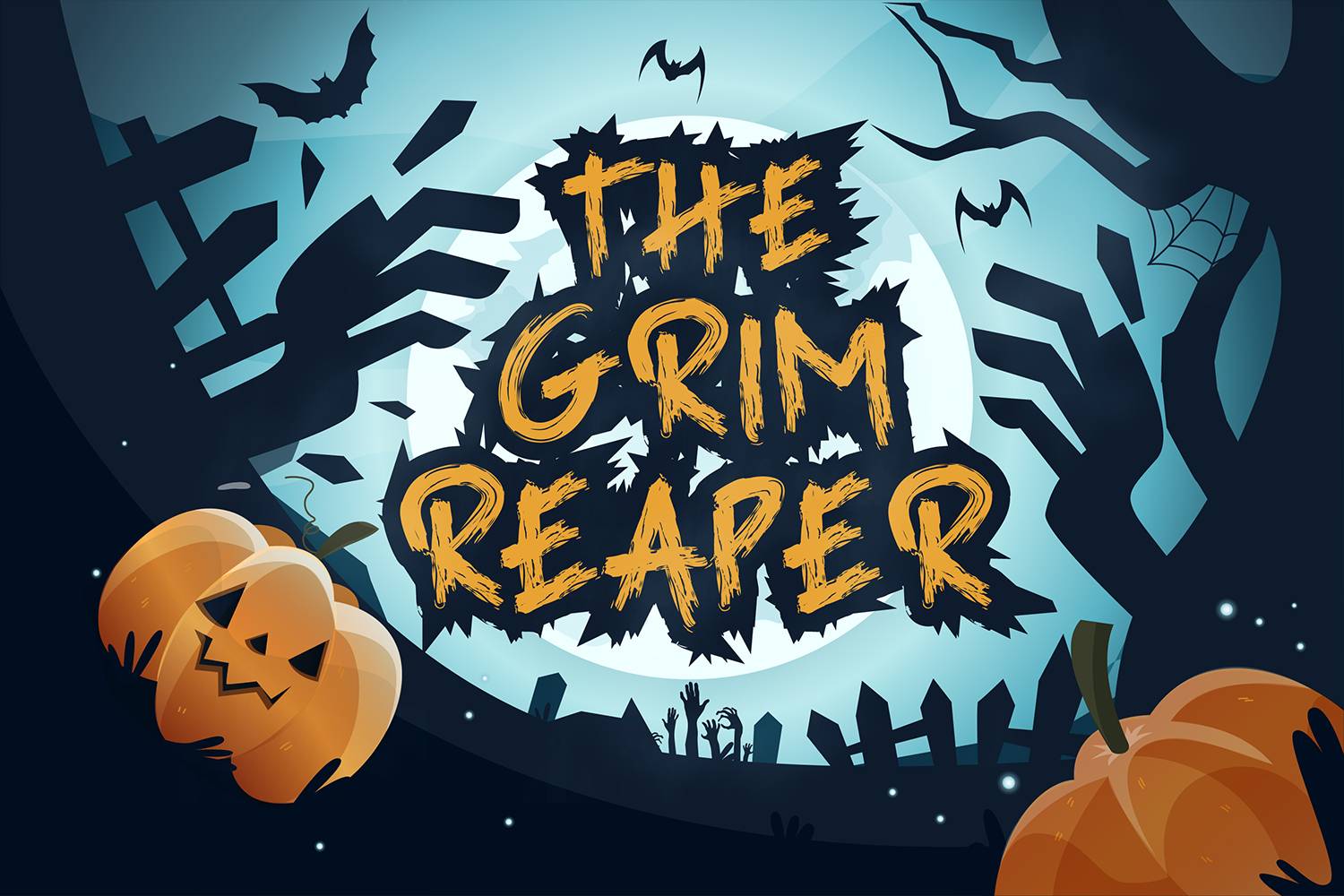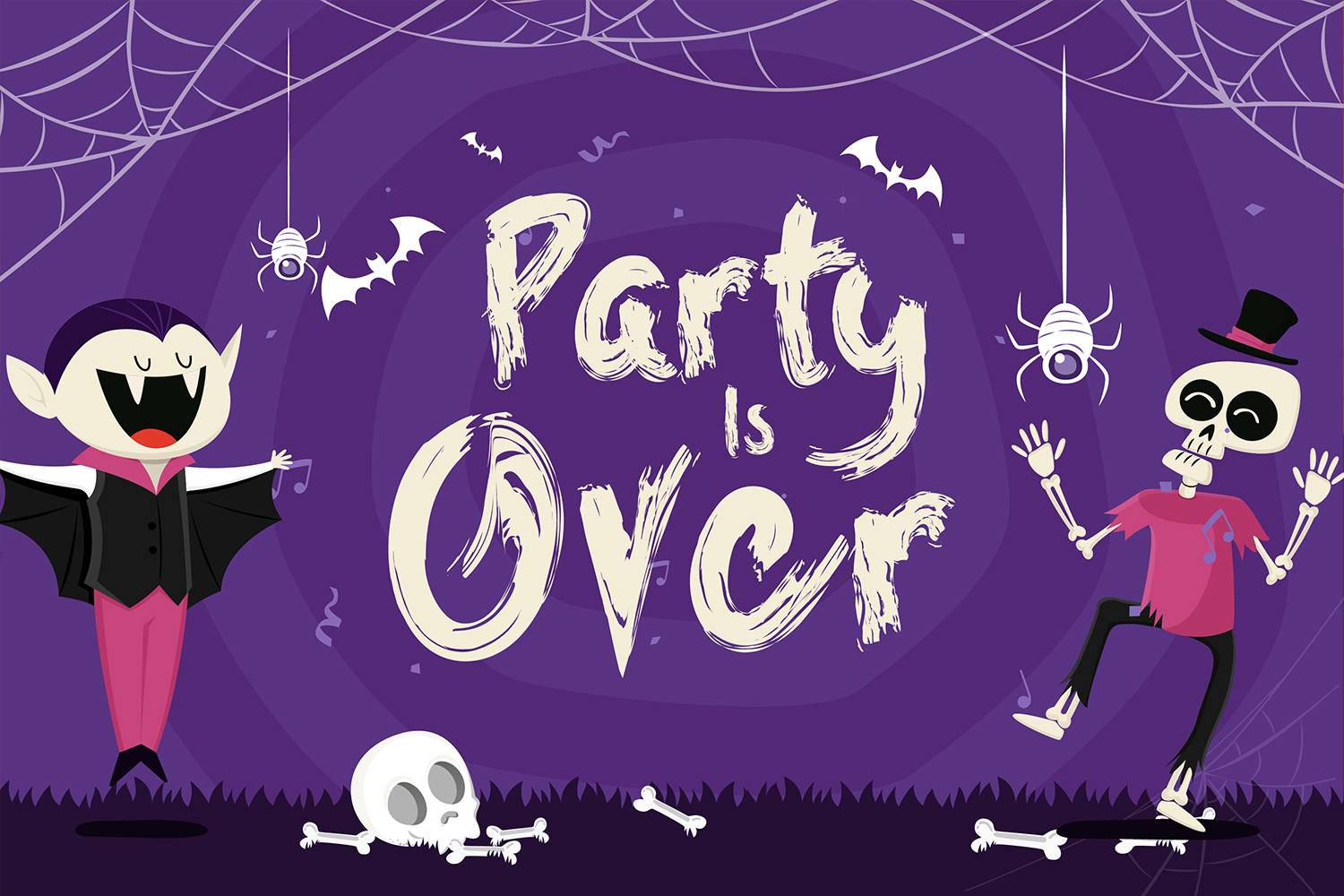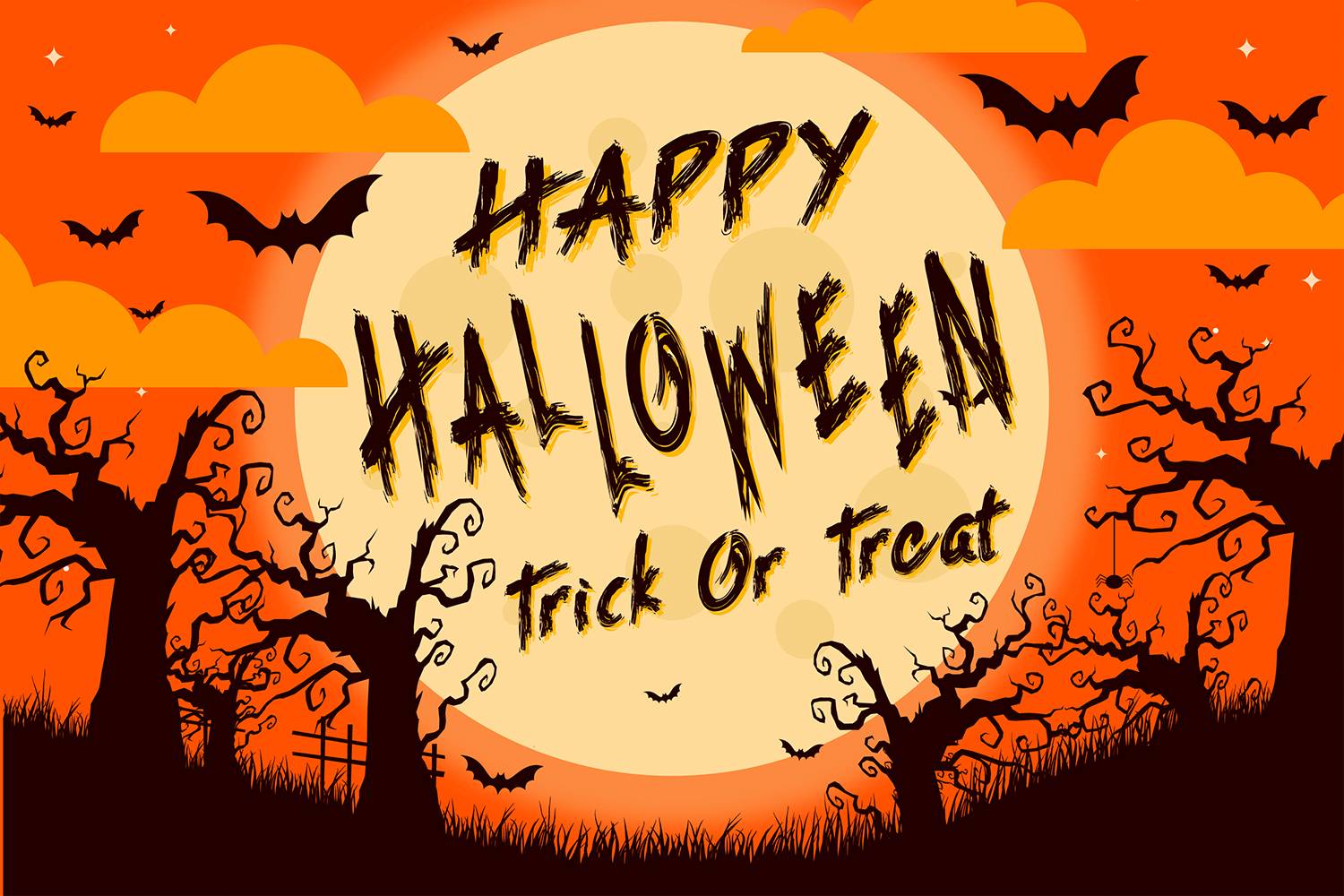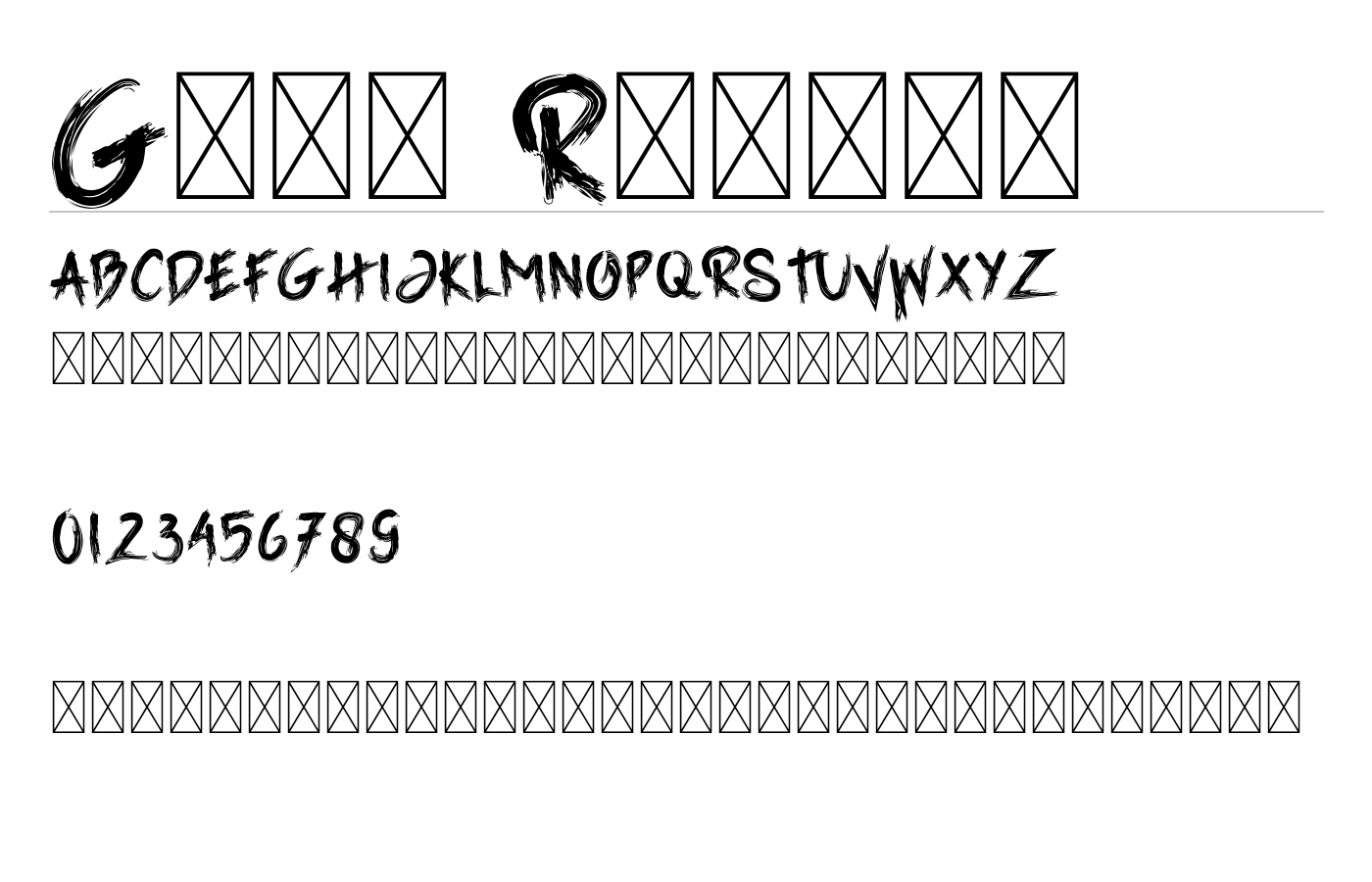
The Grim Reaper font is a bold, hand-drawn script with a rough, brushstroke texture that gives it an edgy, distressed look. Its uneven, jagged letterforms convey a raw, intense mood, making it perfect for designs related to horror, thrillers, or anything with a dark, rebellious vibe. This font works well for striking headlines, posters, and branding that aims to capture attention with a gritty, dramatic style.
The Grim Reaper Font
About The Grim Reaper Font
| Font family | The Grim Reaper Font |
| Designer | Nanda Hardiansyah |